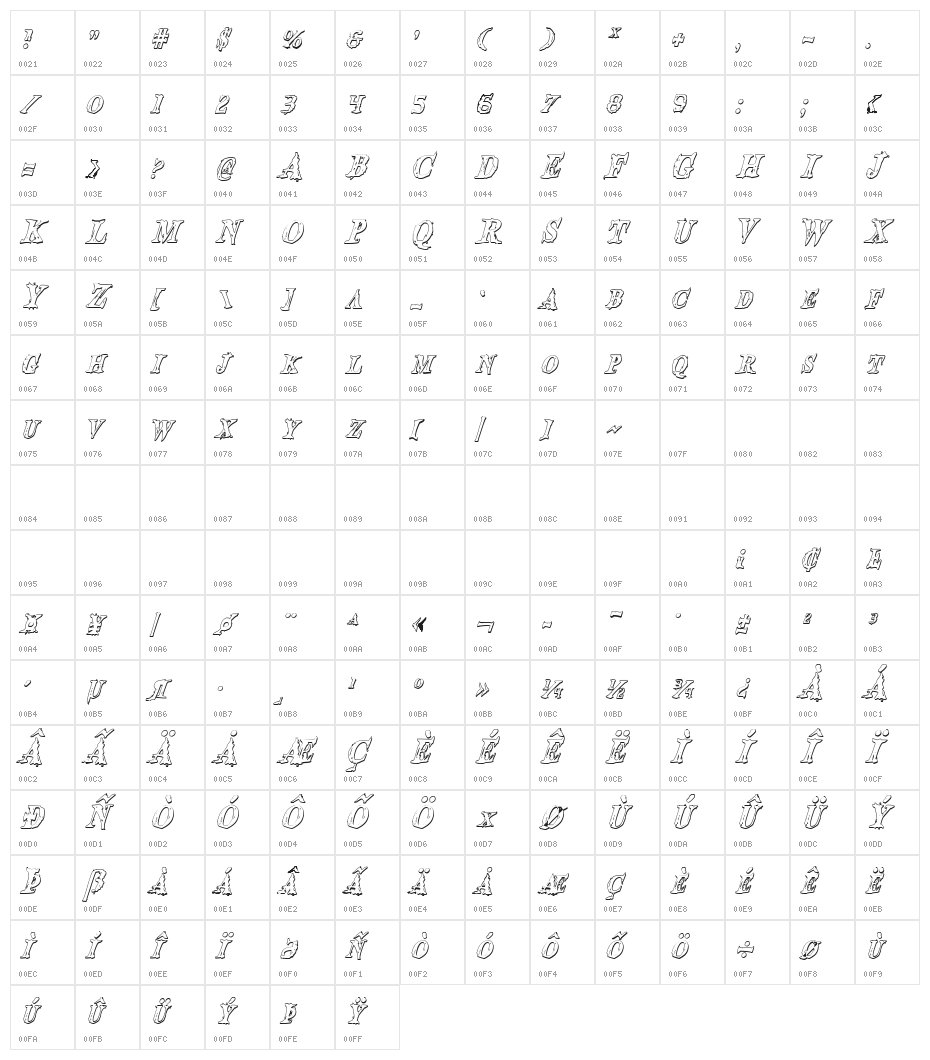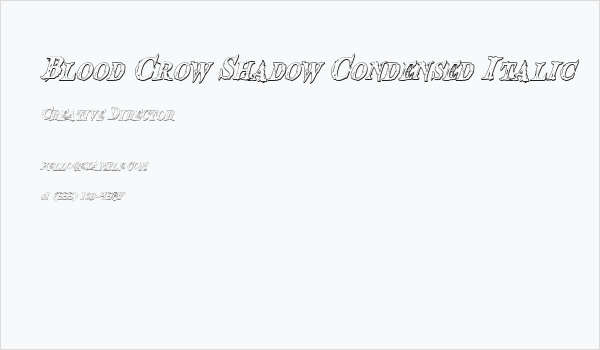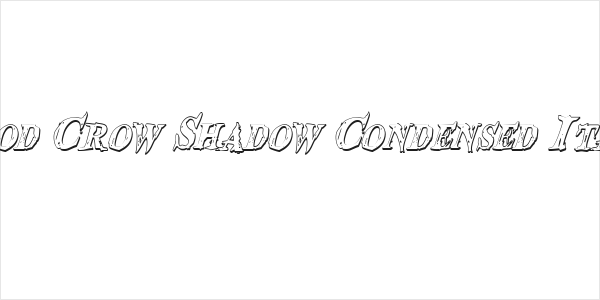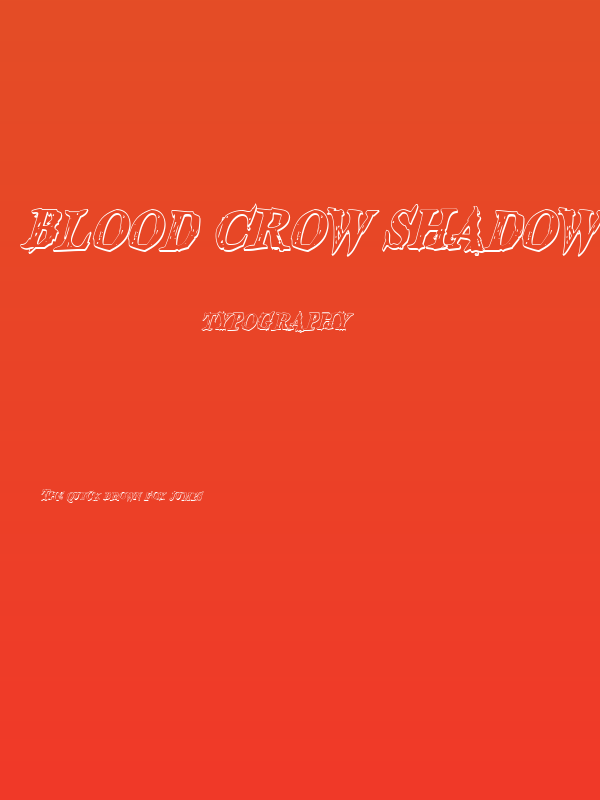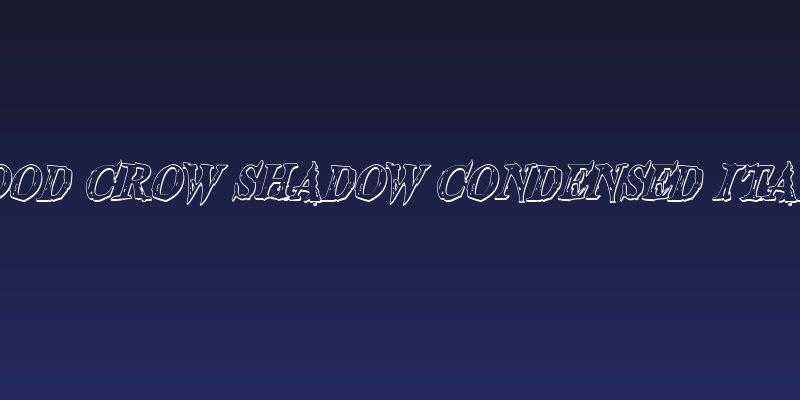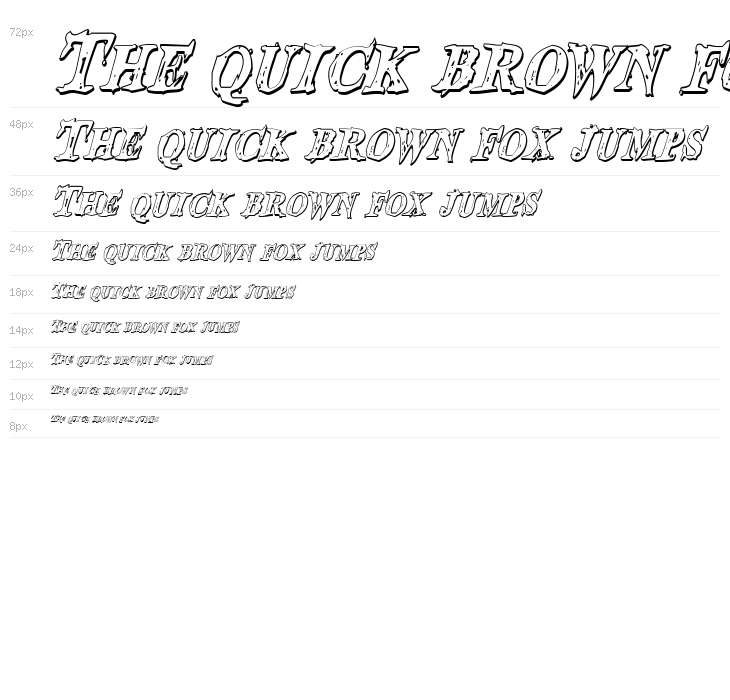
Blood Crow Shadow Condensed Italic Font
Blood Crow Shadow Condensed Italic Description
This font features a bold and edgy design with a distressed, shadowed appearance. The characters are italicized and condensed, giving them a dynamic and aggressive look. The rough, textured edges create a sense of movement and intensity, making it stand out in any design. The uppercase and lowercase letters maintain a consistent style, while the numbers and special characters complement the overall aesthetic. This font is ideal for projects that require a bold statement or a gritty, rebellious vibe.
| Proposed Projects | Ideal for horror-themed posters, edgy branding, album covers, and video game graphics. |